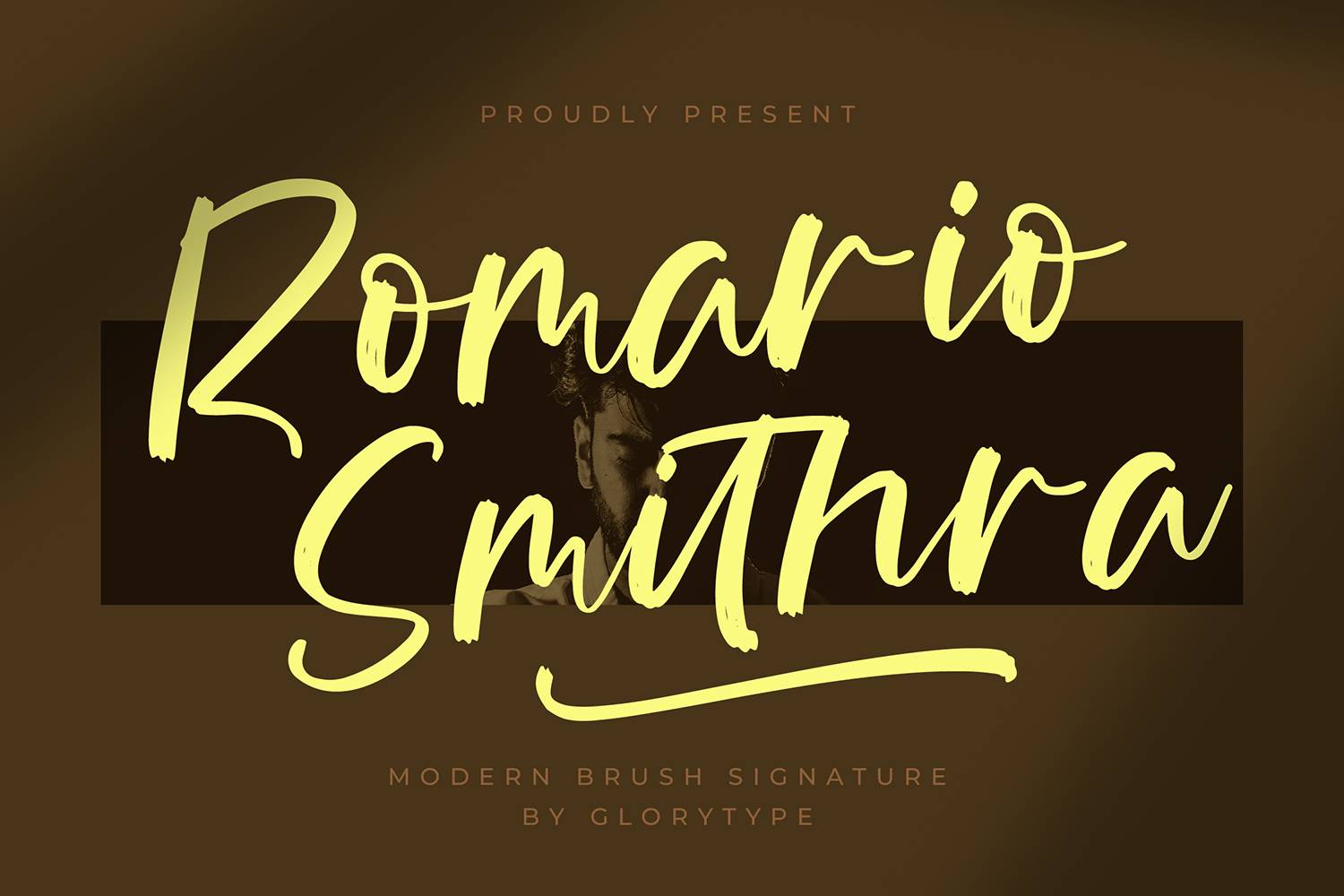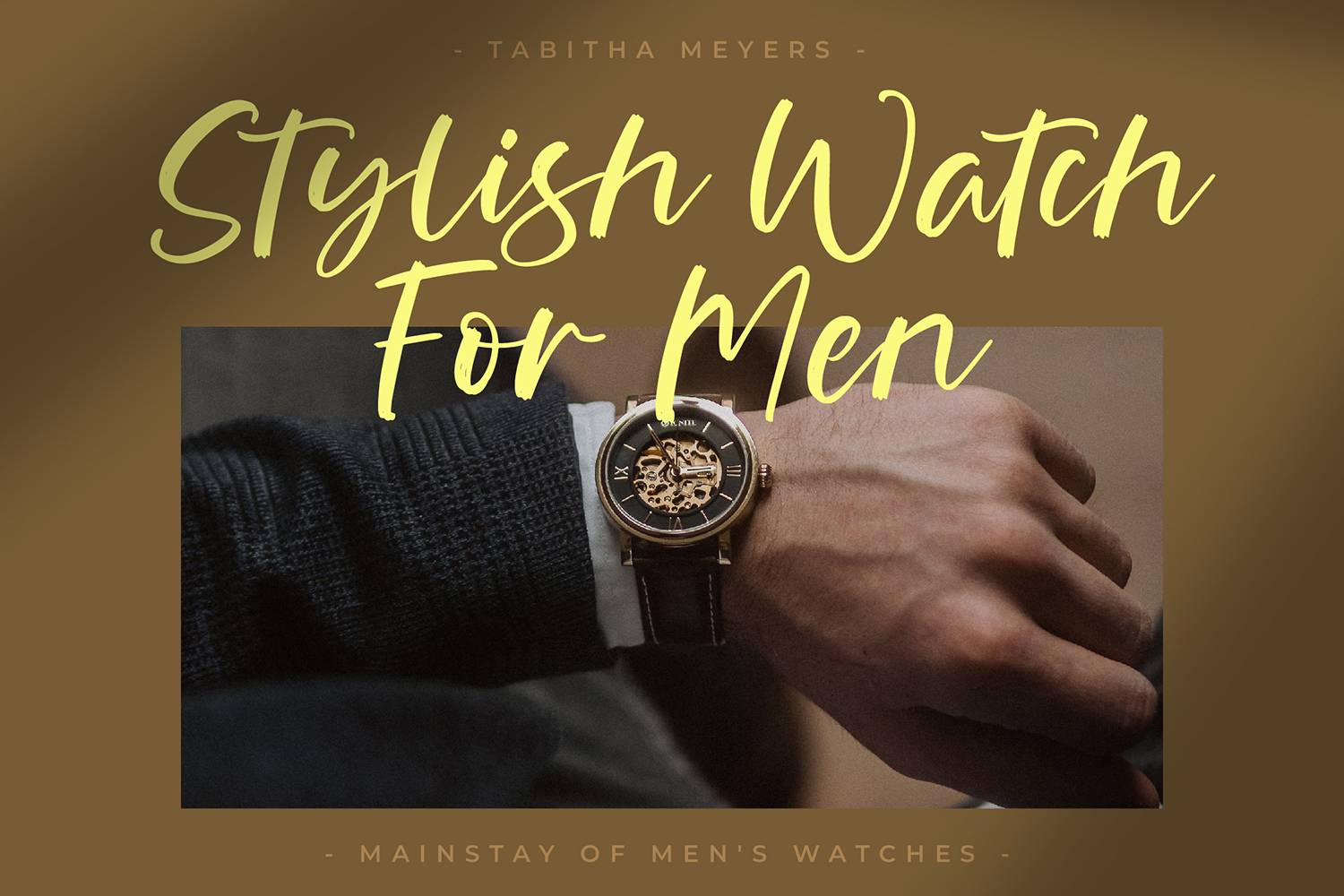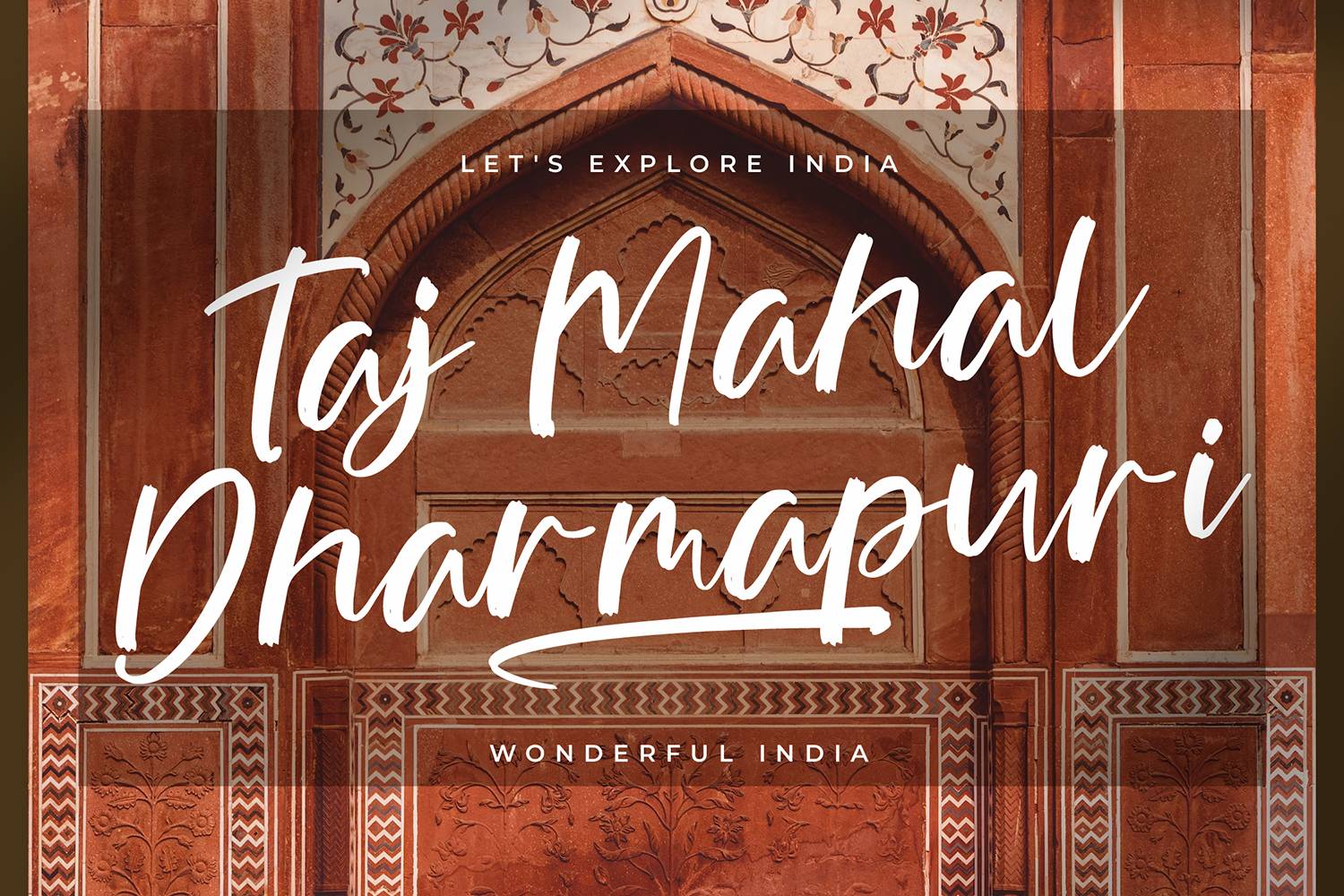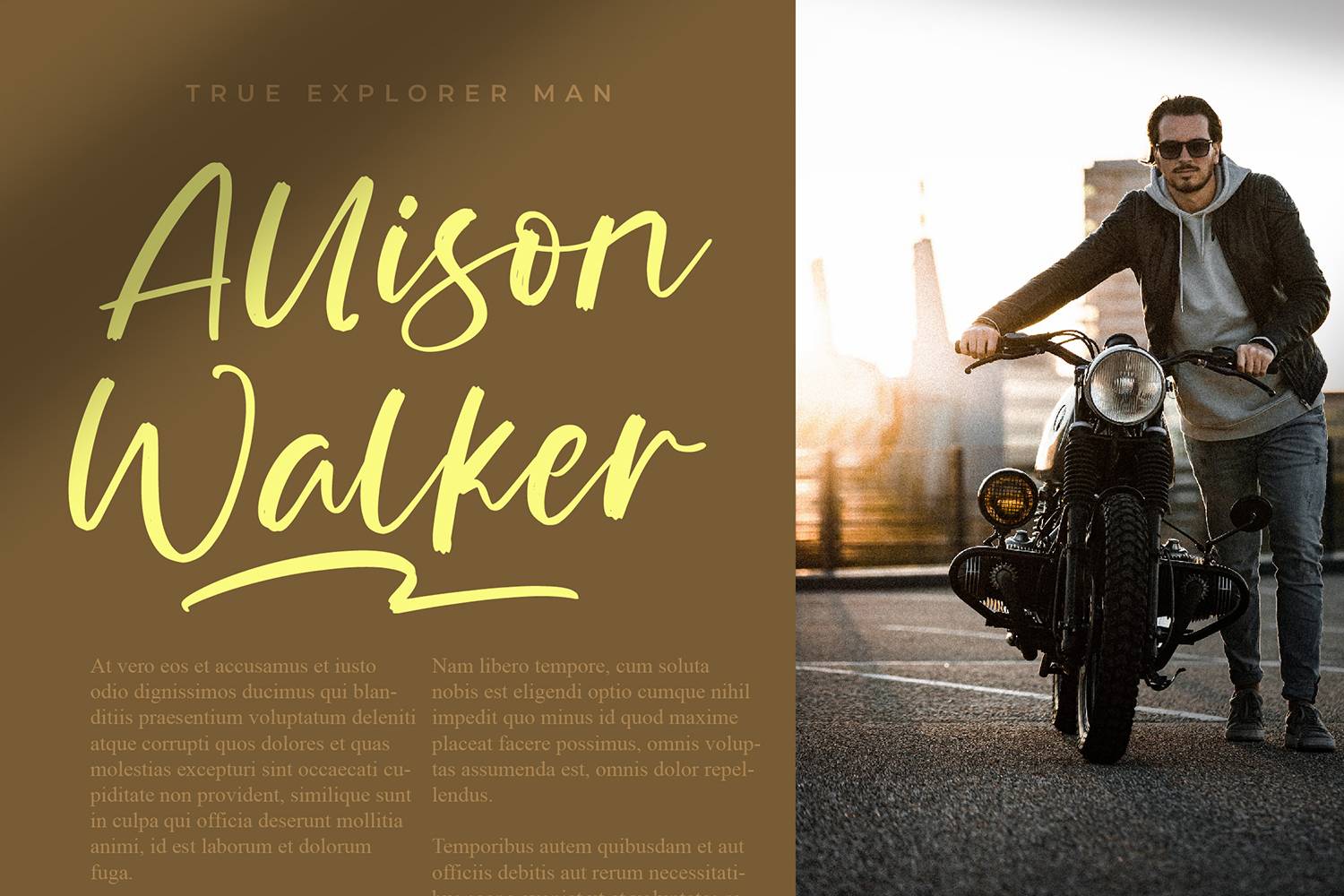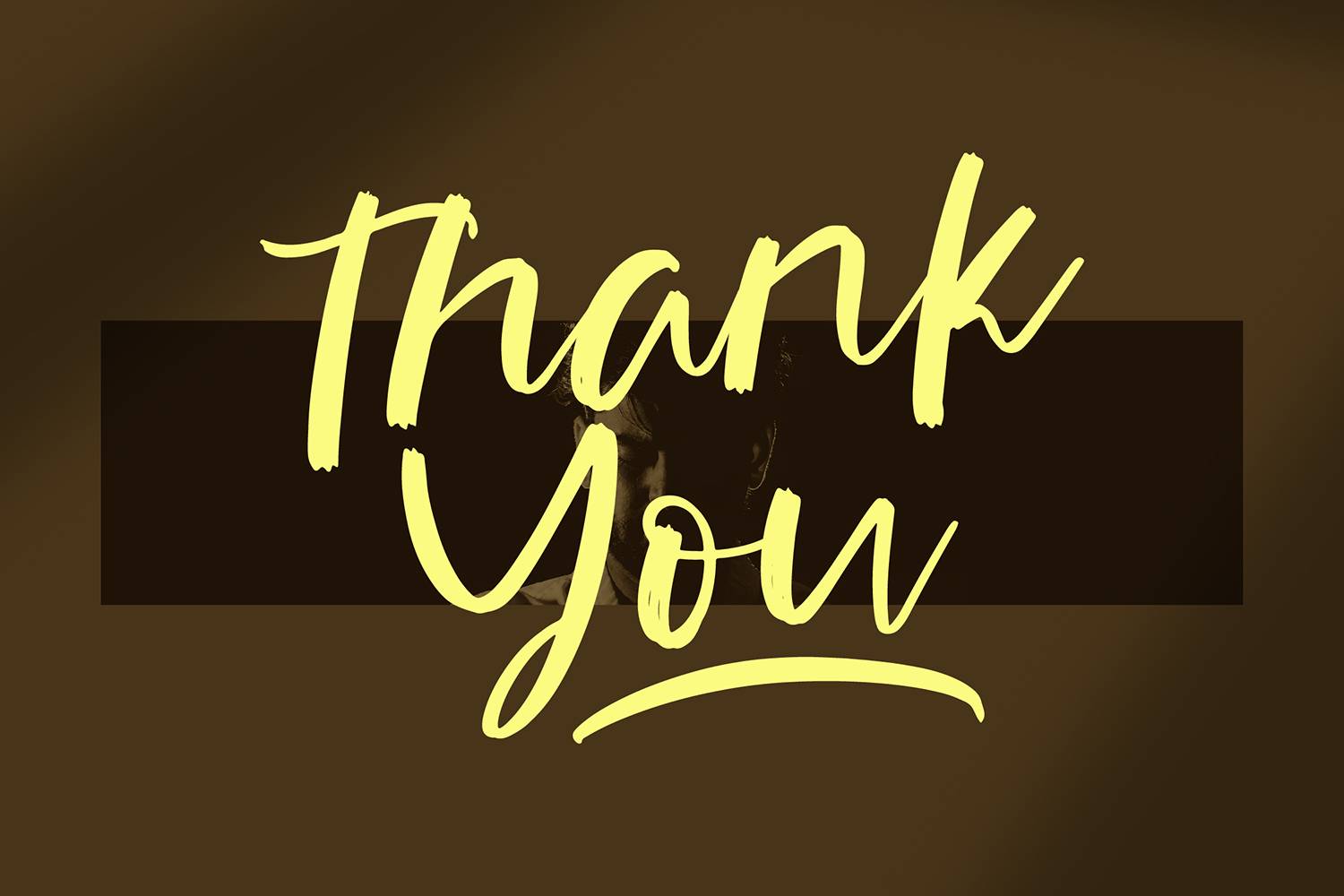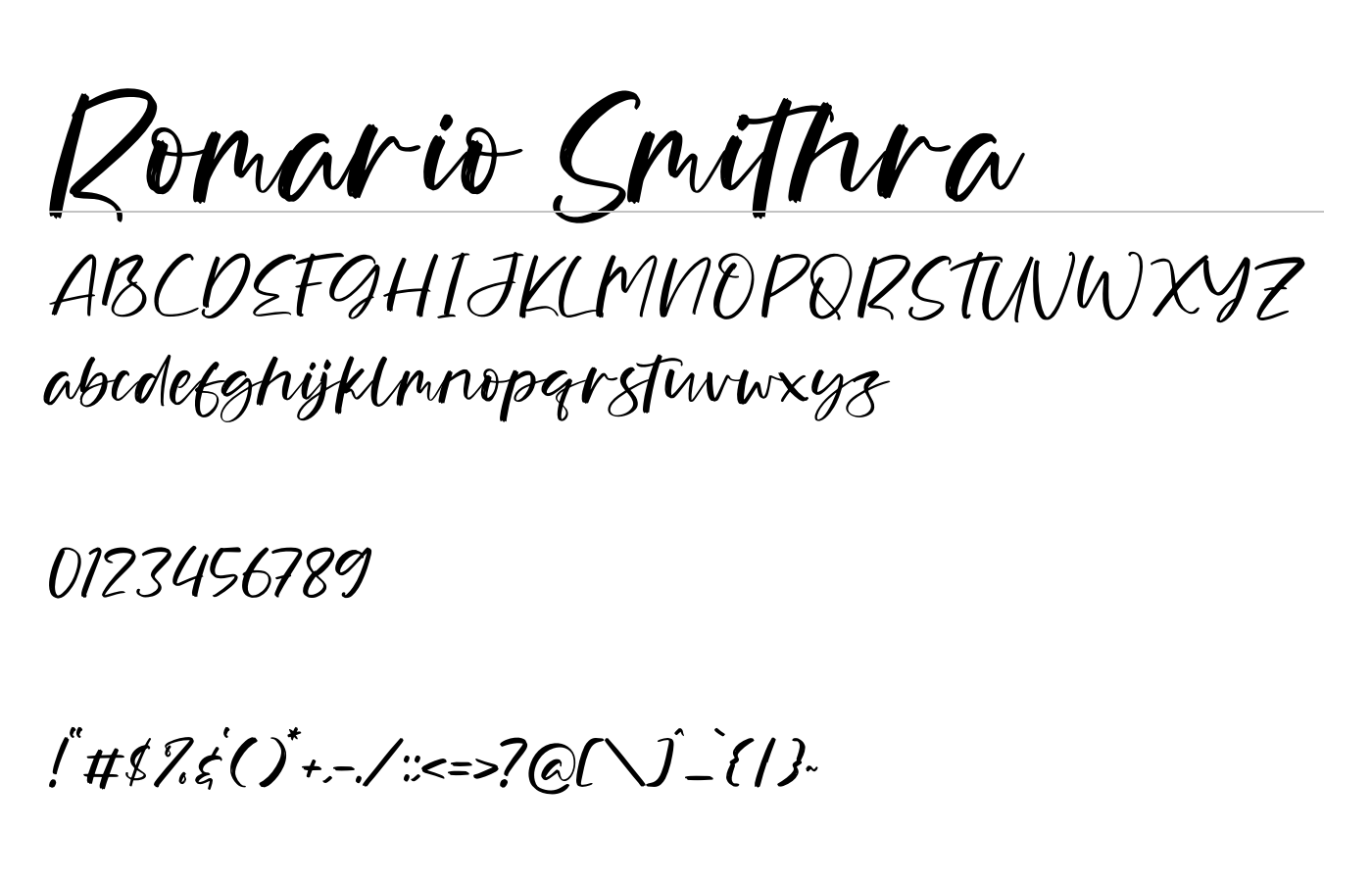
Romario Smithra is a lively and expressive script font that features a hand-drawn, brush-like style with varied stroke weights giving it a natural, dynamic feel. Its playful yet elegant character makes it perfect for creative branding, invitations, and headline use where a personal, artistic touch is desired. This font works well to convey warmth and individuality in both digital and print designs.
Romario Smithra Font
About Romario Smithra Font